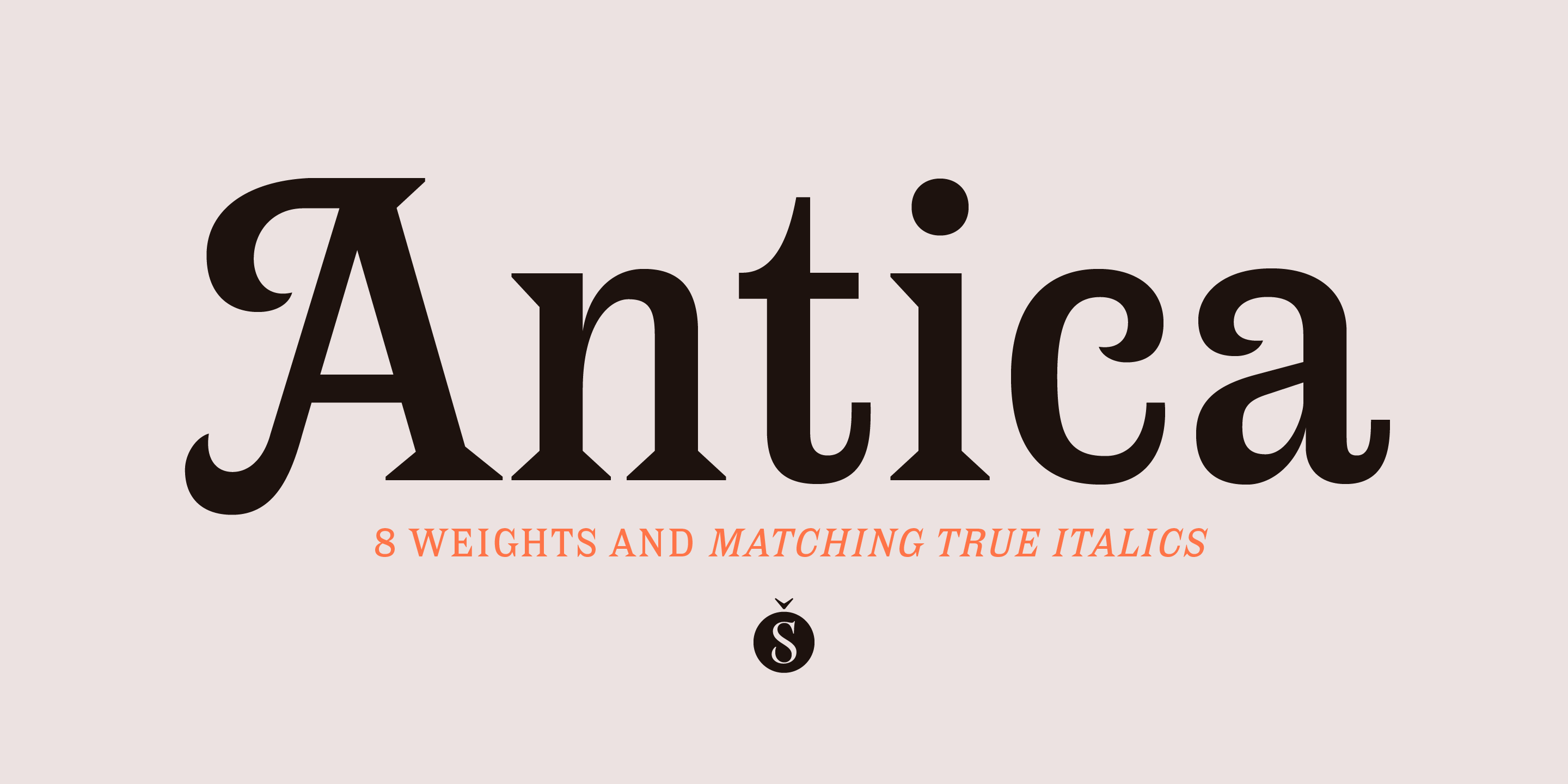
This classical font is perfect for museum exhibitions, historical publications, archaeological documentation, ancient studies materials, cultural heritage projects, classical architecture firms, antiquarian bookstores, and scholarly academic presentations. Its timeless character makes it ideal for projects requiring historical authenticity and scholarly gravitas.
Antica Font is exciting because it embodies the enduring wisdom of classical civilizations with letterforms that echo the inscriptions carved in marble temples and ancient monuments. The font features classical proportions, traditional construction, and authentic details that reflect the artistic mastery and intellectual achievements of antiquity. Its scholarly personality instantly communicates authority, permanence, and the timeless relevance of classical knowledge and cultural heritage.
The Antica Font family typically includes multiple traditional weights and historical variations, along with classical ornaments, ancient symbols, and archaeological decorative elements. Many versions feature stylistic alternates, traditional ligatures, and scholarly glyphs that enhance the authentic historical atmosphere and academic credibility.
Whether you're developing cultural institutions, historical research projects, or classical education materials, Antica Font Free Download provides authentic historical authority with contemporary functionality. This typeface transforms modern communications into timeless statements that resonate with scholars, historians, and culture enthusiasts who appreciate the foundational importance of classical civilization. Its distinctive character adds immediate academic credibility while celebrating the enduring legacy of Antica Font Free Download and the precious wisdom of ancient cultures that continues to illuminate our understanding of human achievement, artistic beauty, and intellectual excellence across millennia.